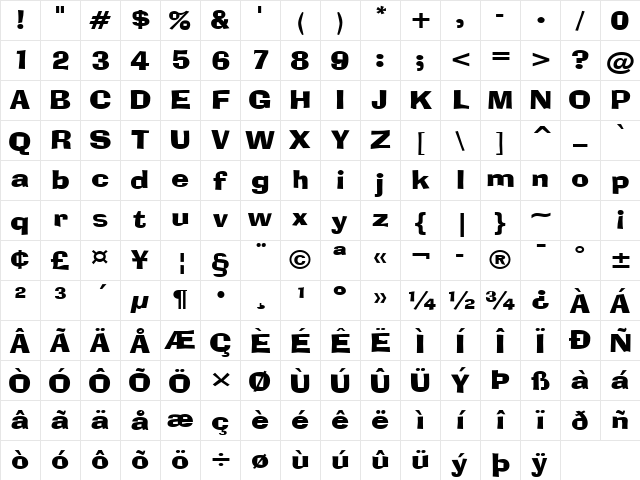
Alor-Extended Normal
Complete Alor-Extended Normal glyph index. Displaying only characters natively supported by Alor-Extended Normal font.
Design Context for Alor-Extended
Alor-Extended is a composed and adaptable typeface that performs quietly and consistently across a wide range of design contexts.